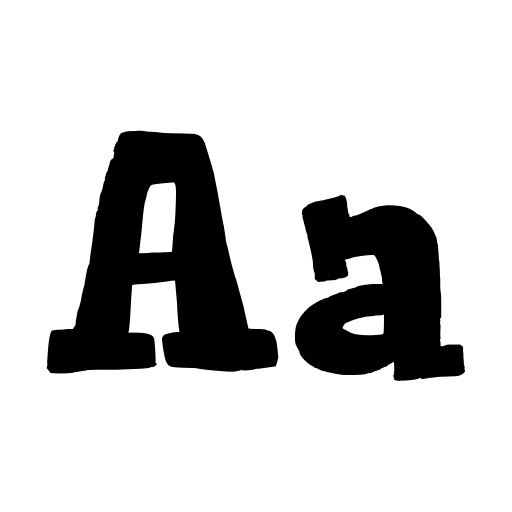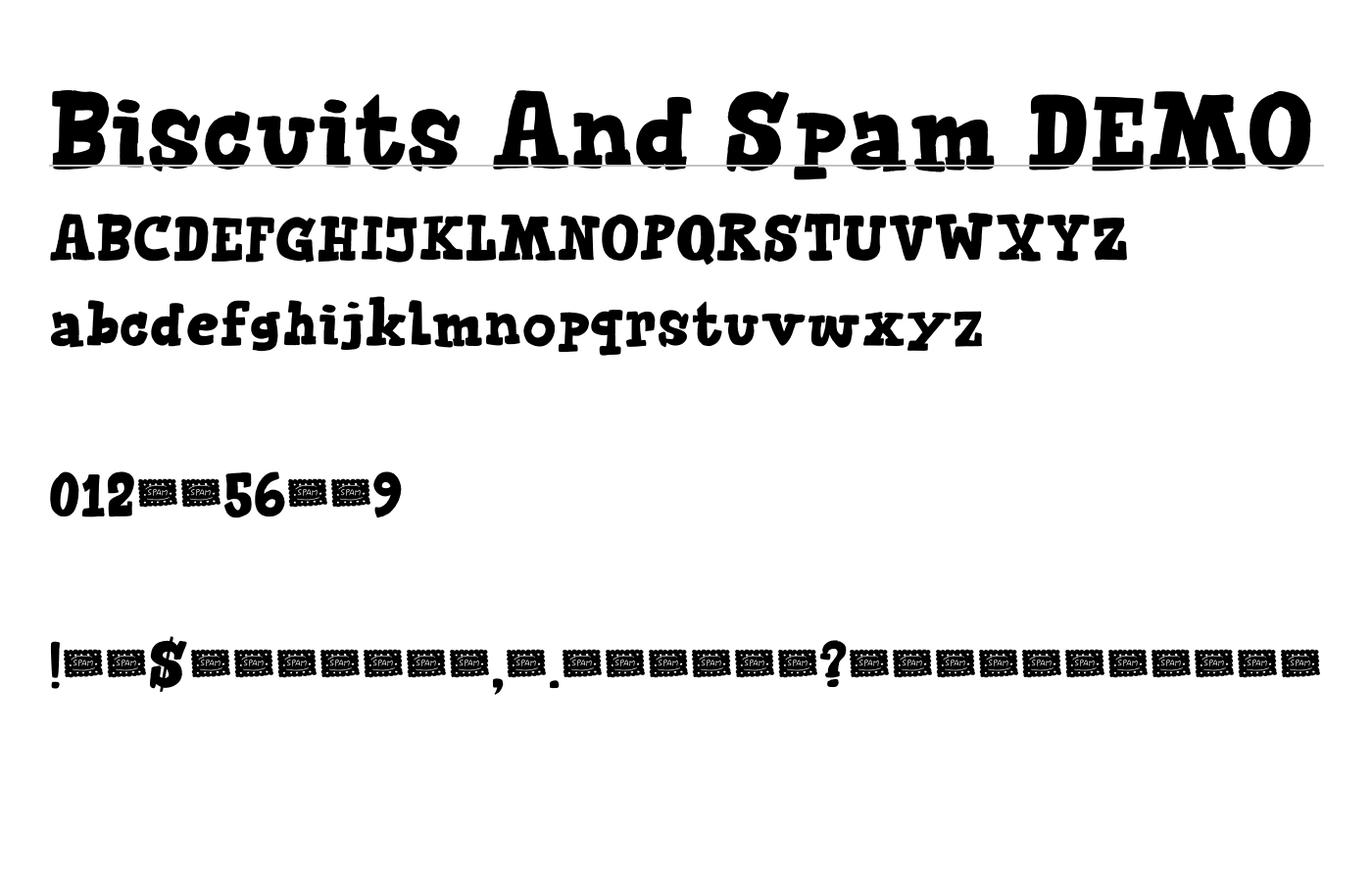
Biscuits And Spam DEMO is a bold, playful slab serif font with a strong, chunky presence and a quirky handmade feel. Its heavy weight, uneven strokes, and whimsical letterforms make it perfect for fun, informal designs such as posters, packaging, or branding that aims to stand out with a friendly, approachable personality. This font works well in headlines and display uses where character and charm are key.
Biscuits And Spam DEMO Font
About Biscuits And Spam DEMO Font